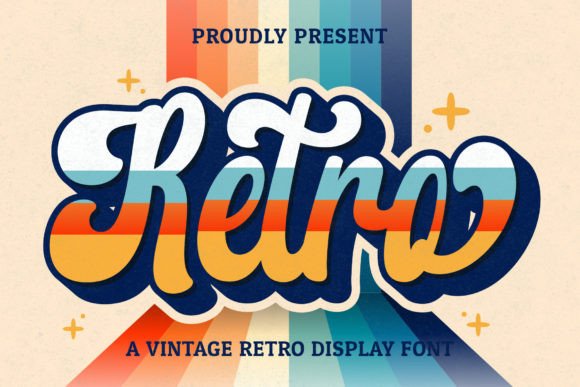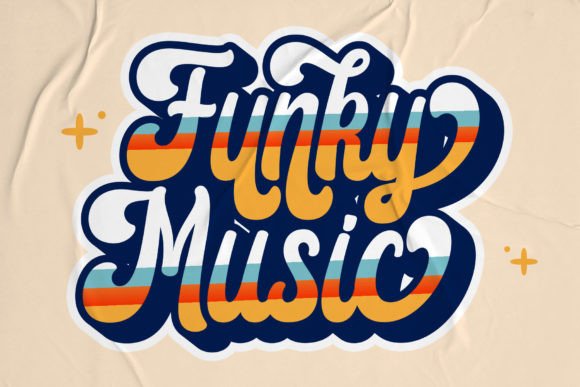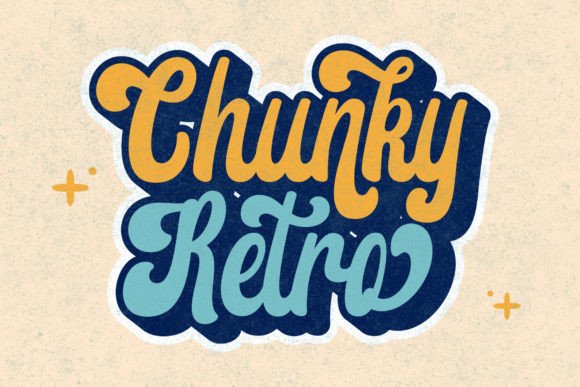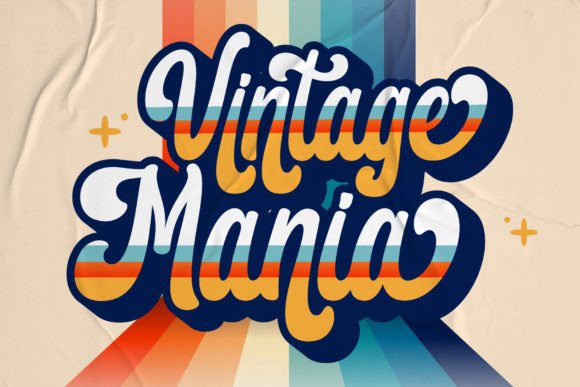
Retro Script Font
About the Retro Script Font
We are excited to introduce Retro Script Font, a must-have typeface for any serious designer. Retro Script is a cool, vintage-style handwritten font. Use it to add that special retro touch to any design idea! It can be used for logos, branding, invitations, stationery, wedding designs, social media posts, and much more!
Retro Script’s playful, vintage style is ideal for headlines, short text blocks on posters or invitations, and branding elements needing a touch of nostalgic charm. It works exceptionally well for projects targeting a younger demographic or those with a retro-themed aesthetic, such as coffee shops, vintage clothing brands, or music festivals. Avoid using it for body copy or lengthy paragraphs; its handwritten nature makes extended reading difficult.
Pairing Retro Script with a clean sans-serif like Open Sans for body text provides a strong contrast, balancing its casual energy. For a more sophisticated look, consider pairing it with a classic serif like Garamond or a geometric sans-serif like Futura. These pairings allow Retro Script to shine as an impactful accent without overwhelming the design.
Its inherent personality is undeniably fun and informal, making it unsuitable for projects requiring a high degree of professionalism or sophistication. However, for projects where a lighthearted, vintage feel is desired, Retro Script offers a unique and effective visual solution.
Retro Script Font Usage Examples
Retro Script Font Example